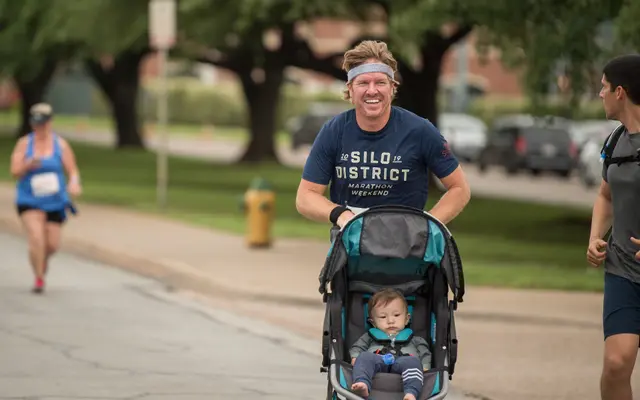
Industry Inc
Fort Foundry · Mattox Shuler
A layered display type system derived from the bold uppercase of the Industry family, offering 14 stylistic variants for stacking and combining.
Built on the bold uppercase skeleton of Fort Foundry's Industry family, Industry Inc provides 14 distinct styles including Base, Stencil, Bevel, Inline, Outline, Cutline, Detail, 3D and their fill counterparts. The family functions as a modular system, with styles designed to be layered on top of one another to produce multi-effect typographic treatments. Suited to branding, packaging and editorial contexts where a bold, industrial character is wanted alongside flexible decorative control.
A bold, all-caps display sans built around a layered type system with decorative variants including stencil, bevel, inline and 3D cuts; firmly display in application and intent.